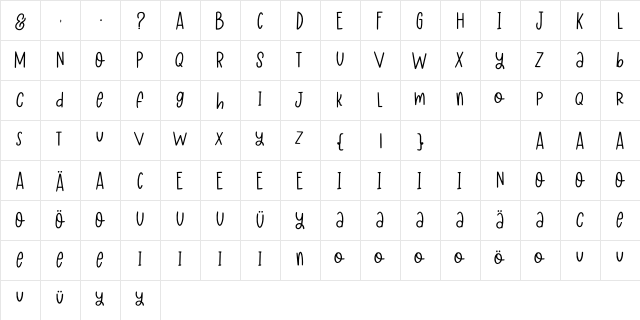
Milloris Diary Regular
| Foundry | Kotak Kuning Studio |
| Designer | M Arif Dwi Prasetyo & Eko Nurcahyo |
Design Context for Milloris Diary Typeface
Milloris Diary is a composed and adaptable typeface that performs quietly and consistently across a wide range of design contexts.